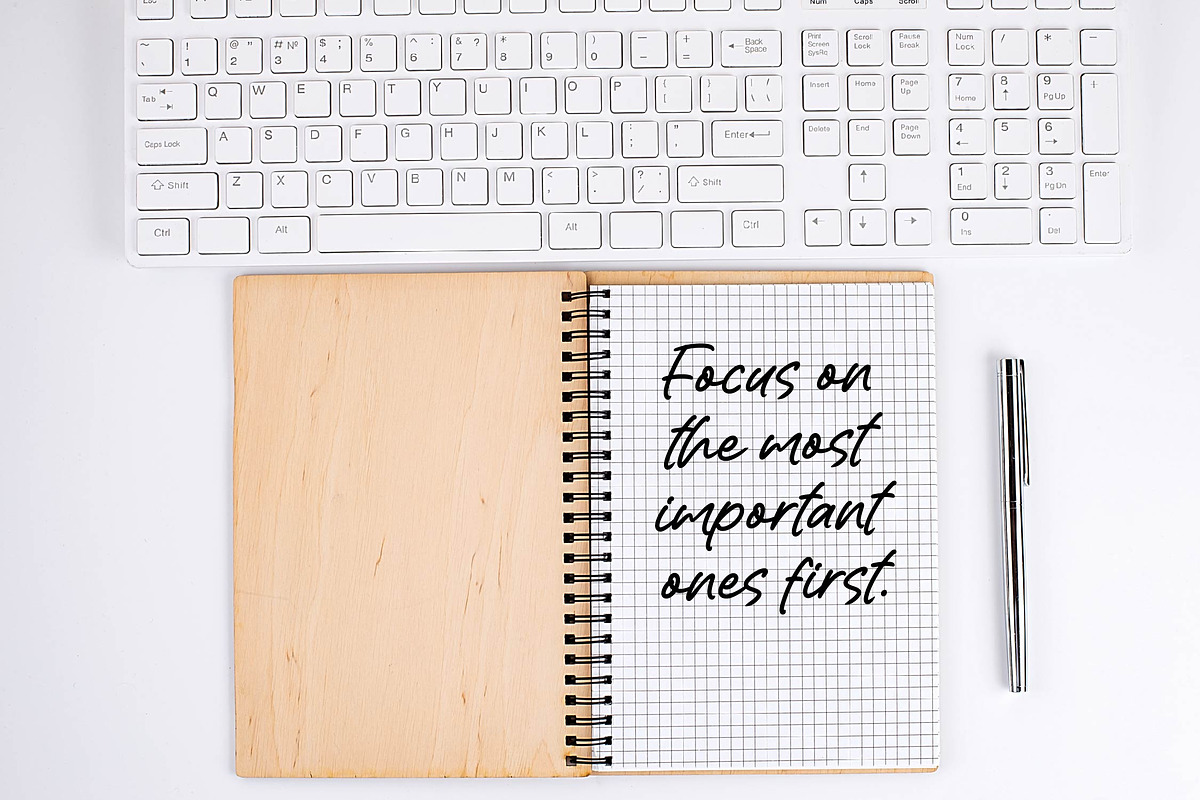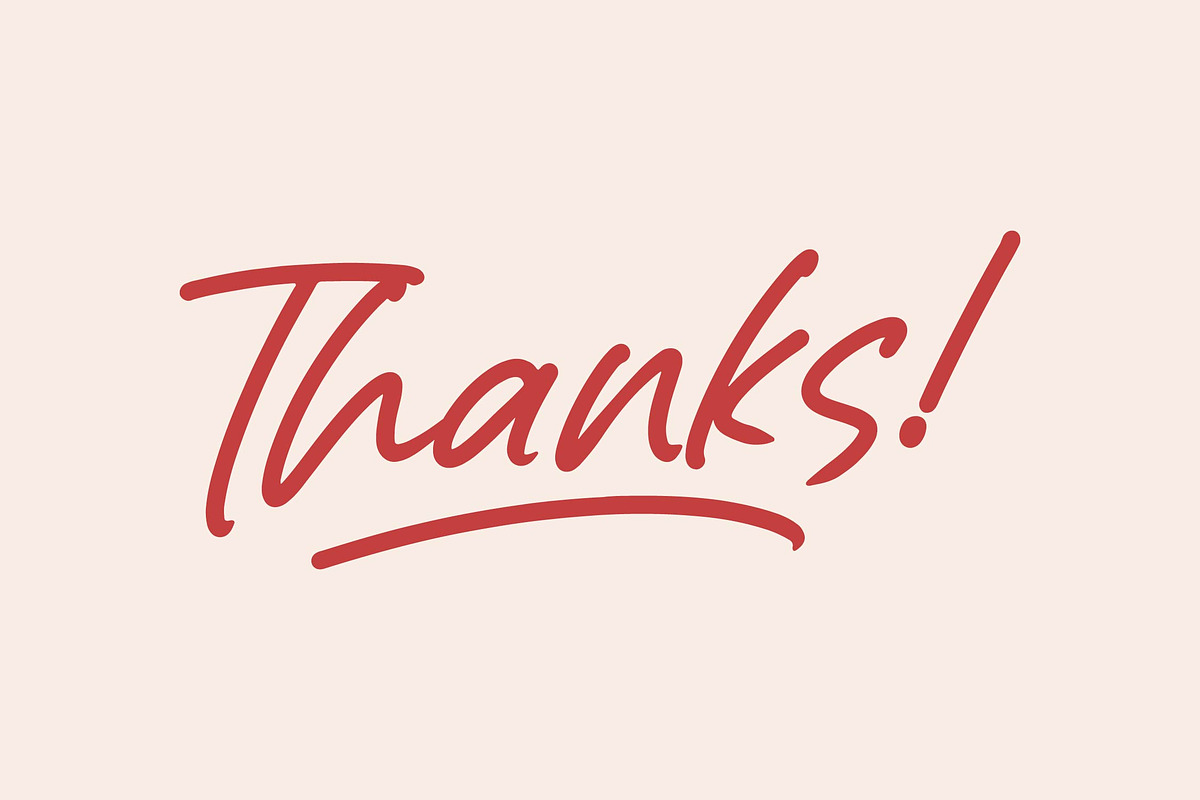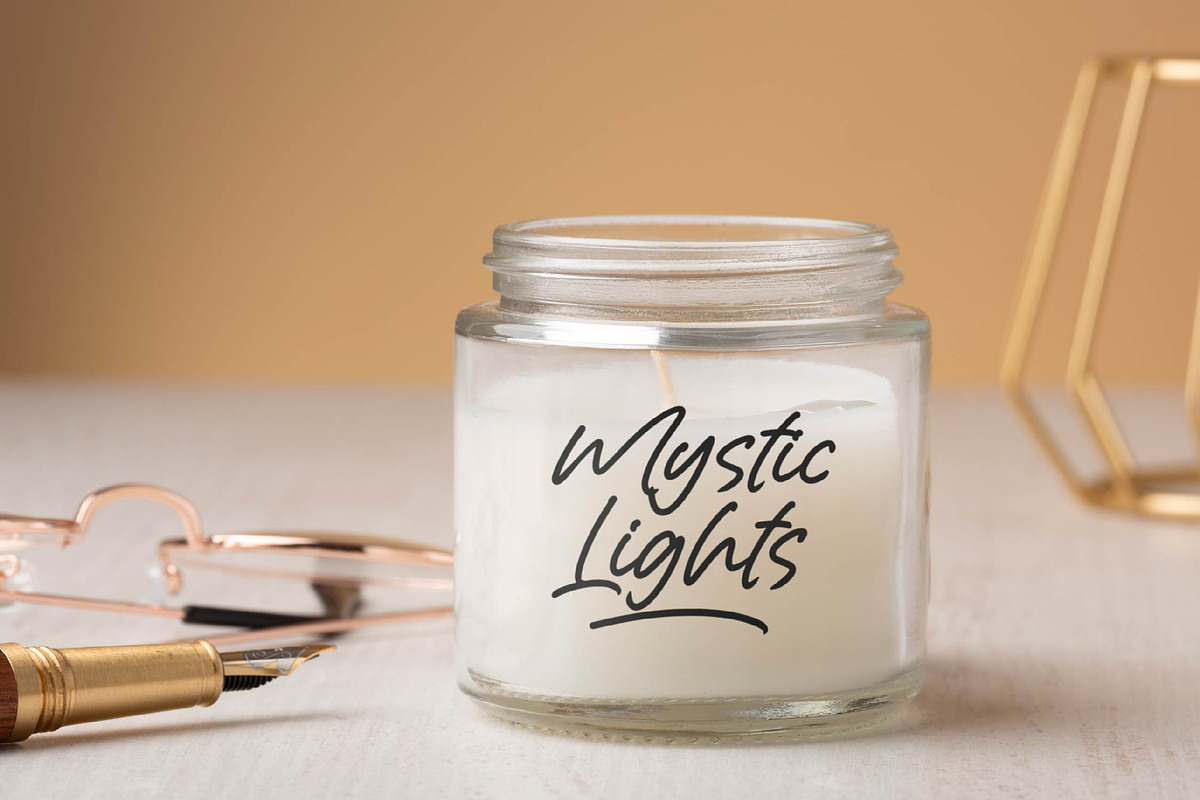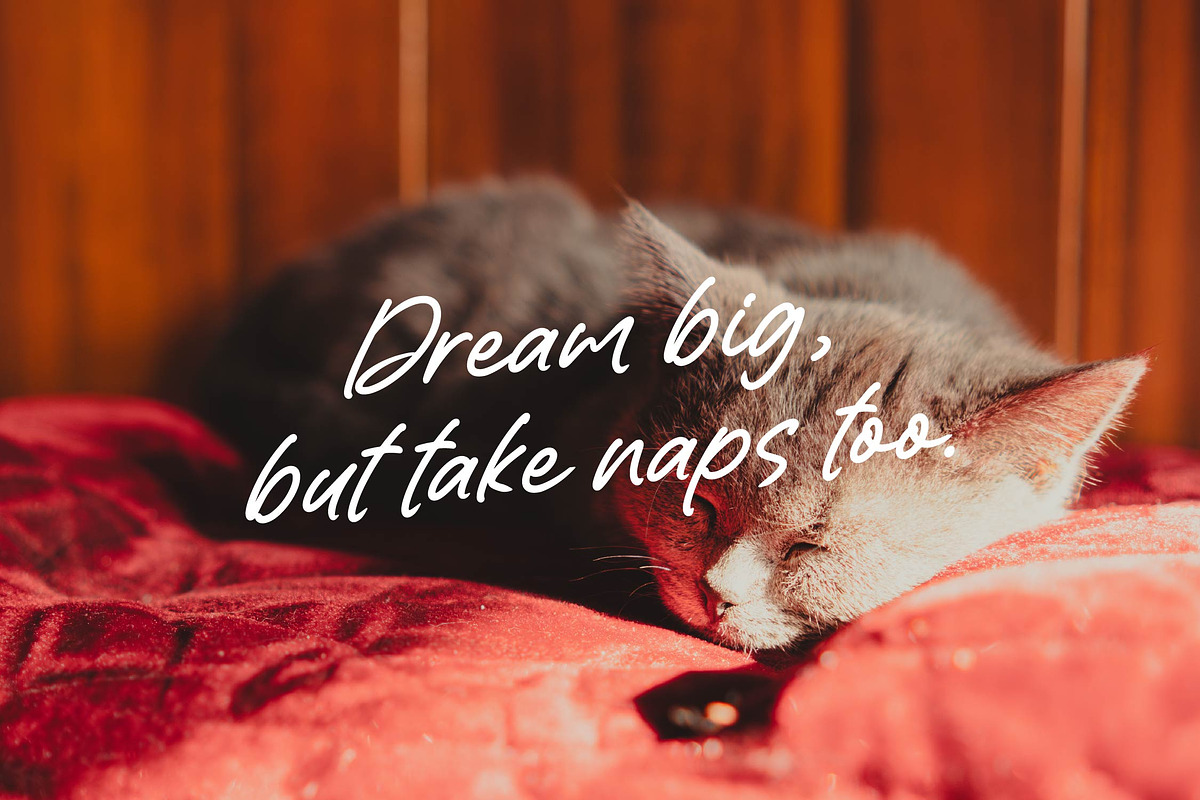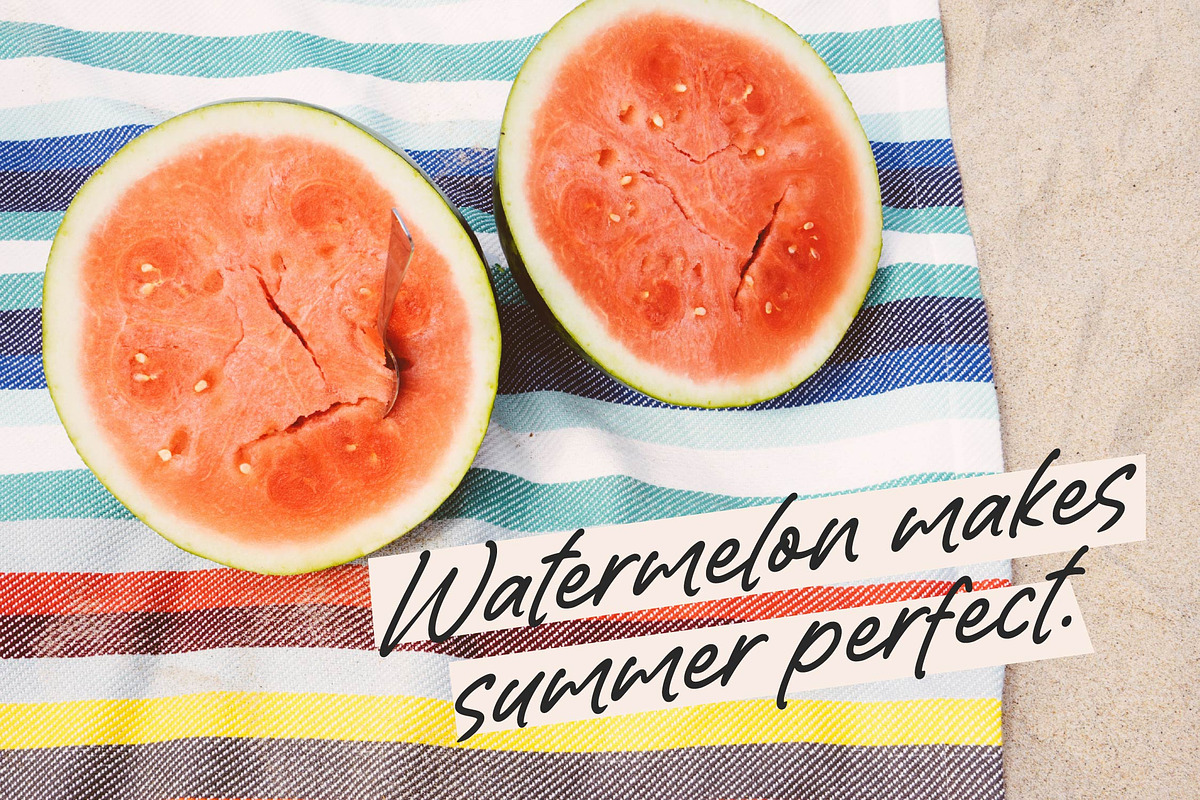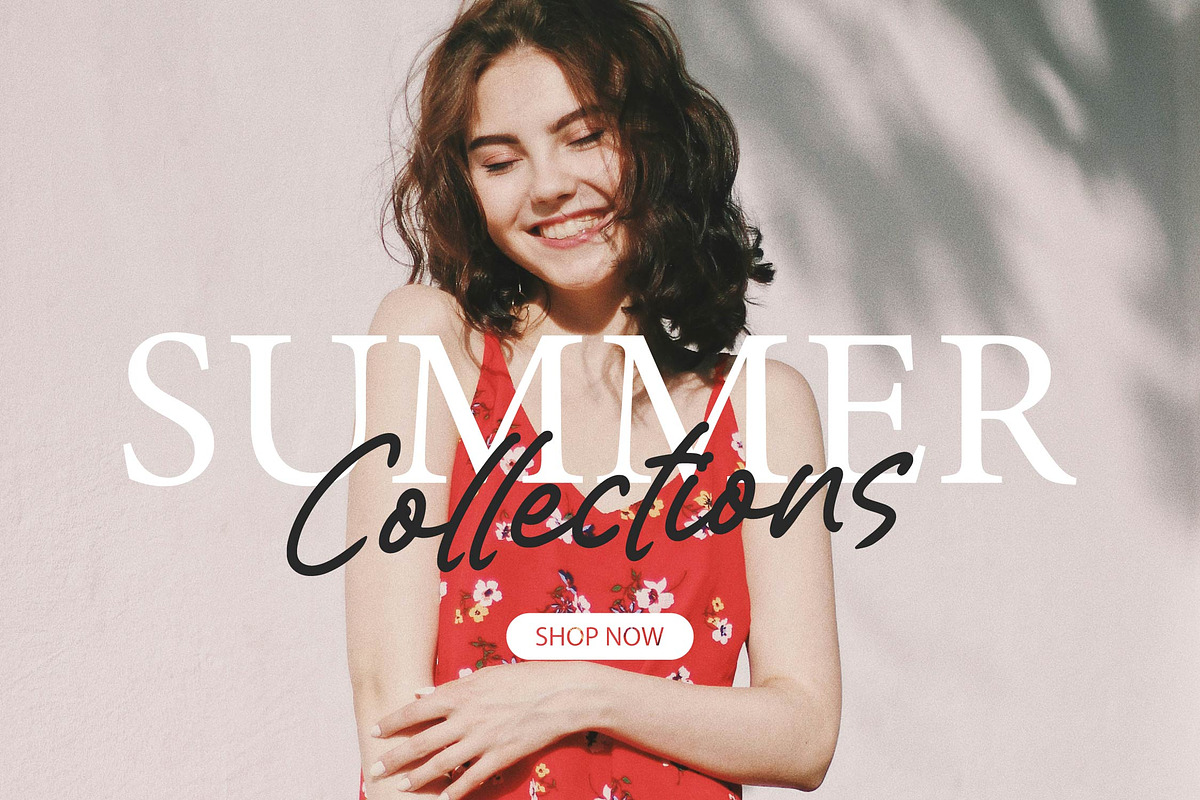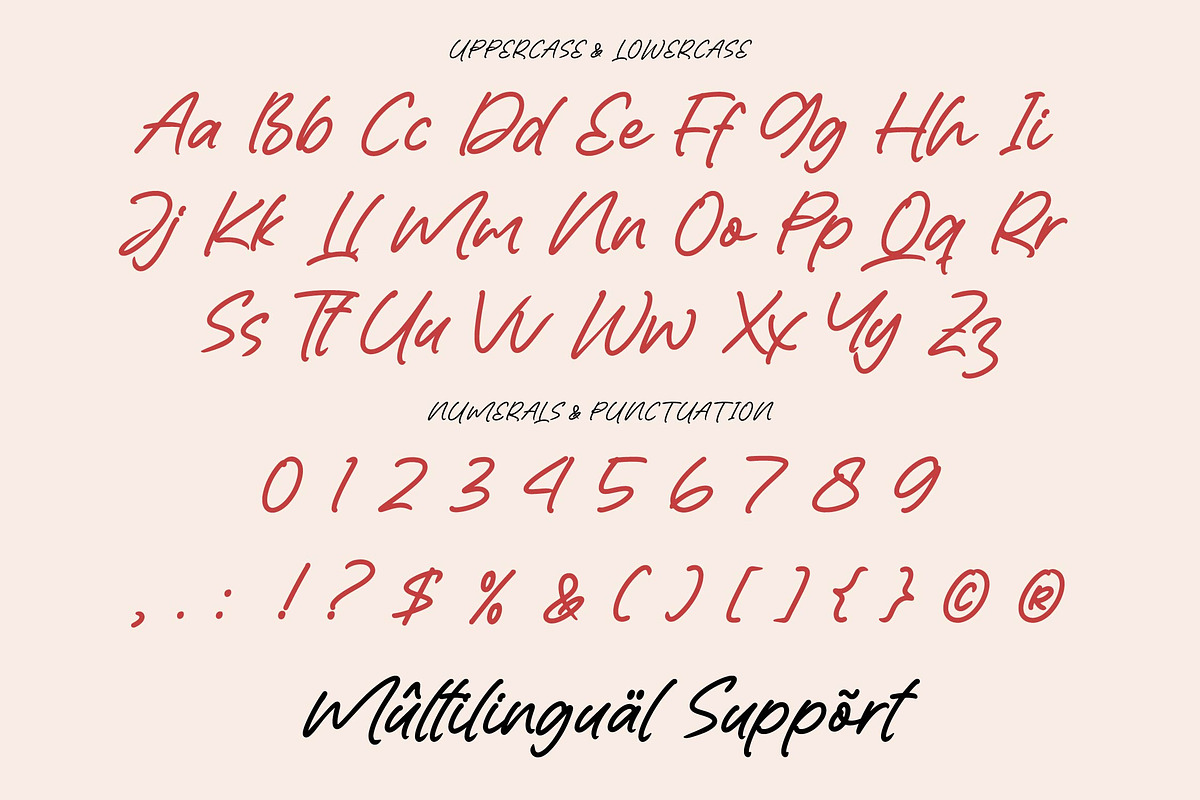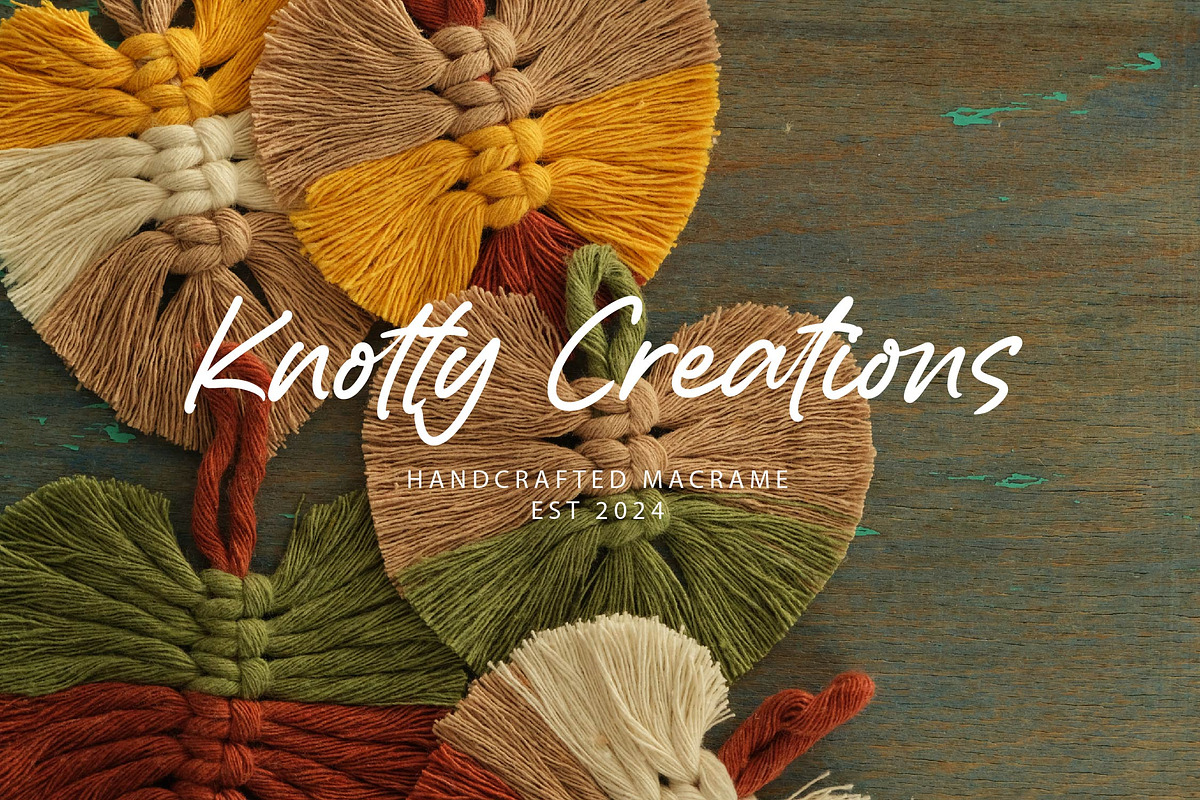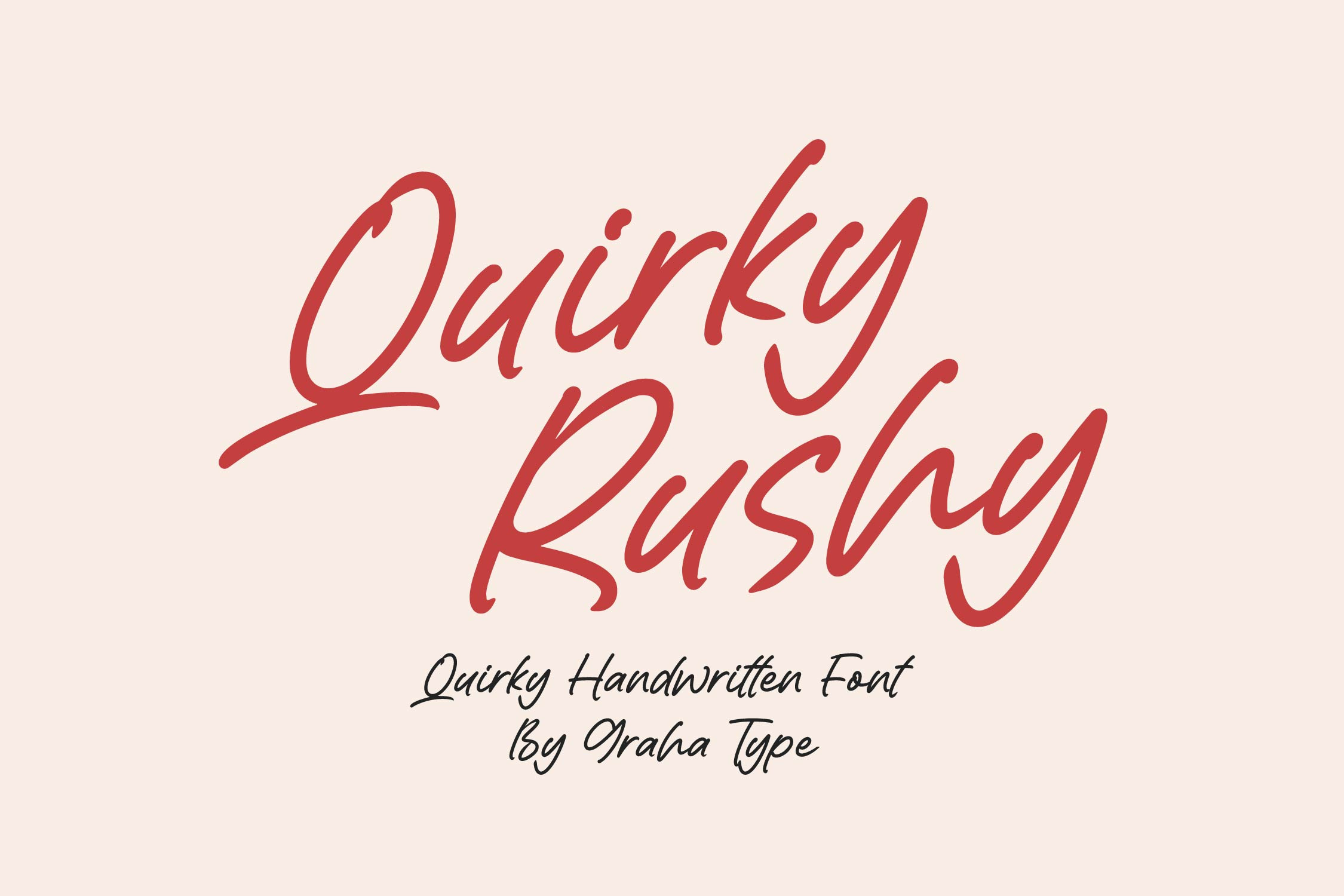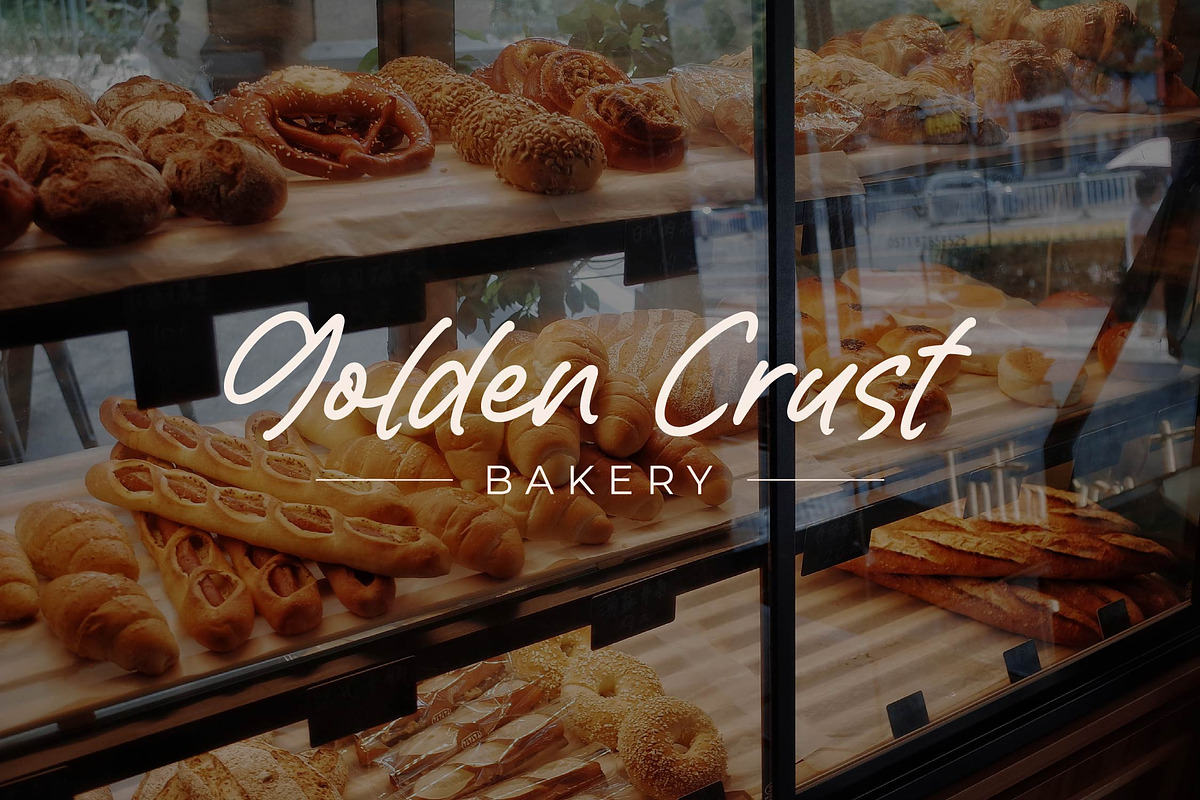
Quirky Rushy - Handwritten Font
Quirky Rushy is a quirky handwritten font that exudes a unique and vibrant personality. Its design combines the spontaneity and playful nature of handwriting, with slightly irregular strokes that create a fresh, lively vibe. Each letter seems to be written in a rush, with unexpected flourishes, adding to its dynamic and fun character.
This font is perfect for projects that require a creative, informal touch, such as event posters, playful brand logos, or illustrations that aim to convey a relaxed and carefree atmosphere. With its imperfect yet legible strokes, Quirky Rushy brings energy and individuality to every word it’s used for.